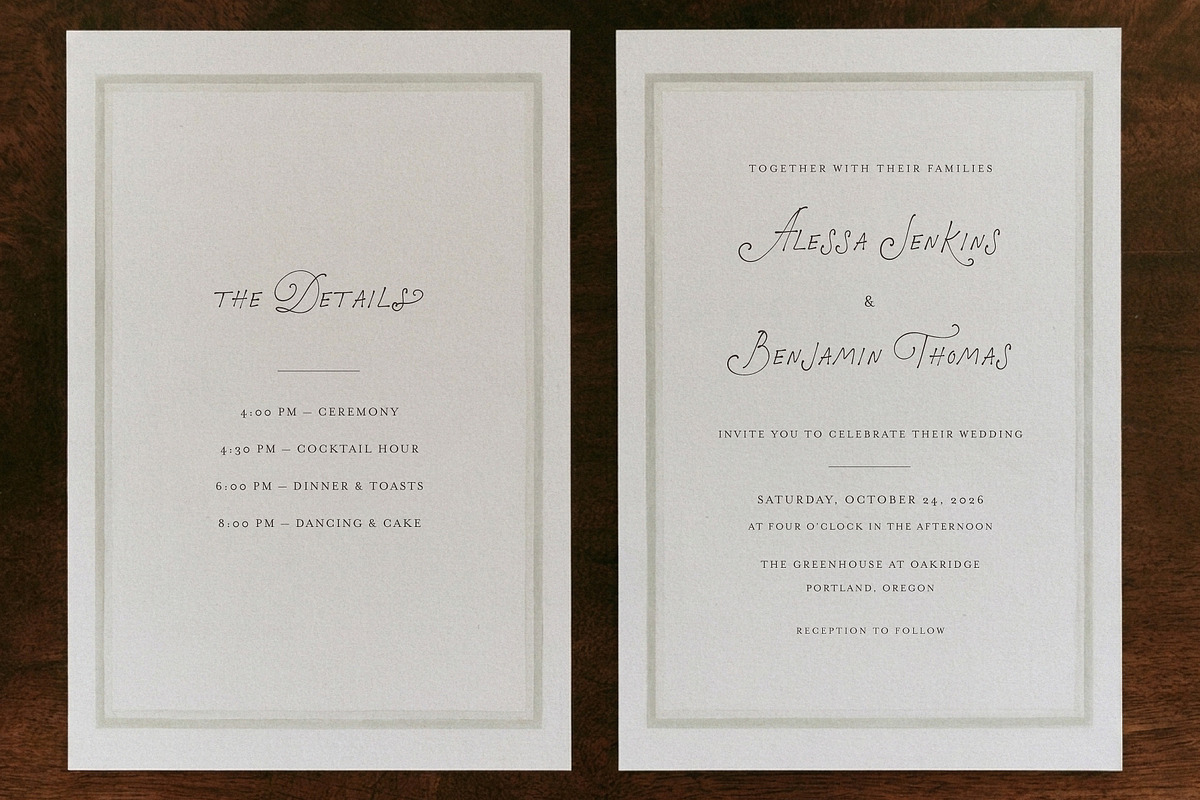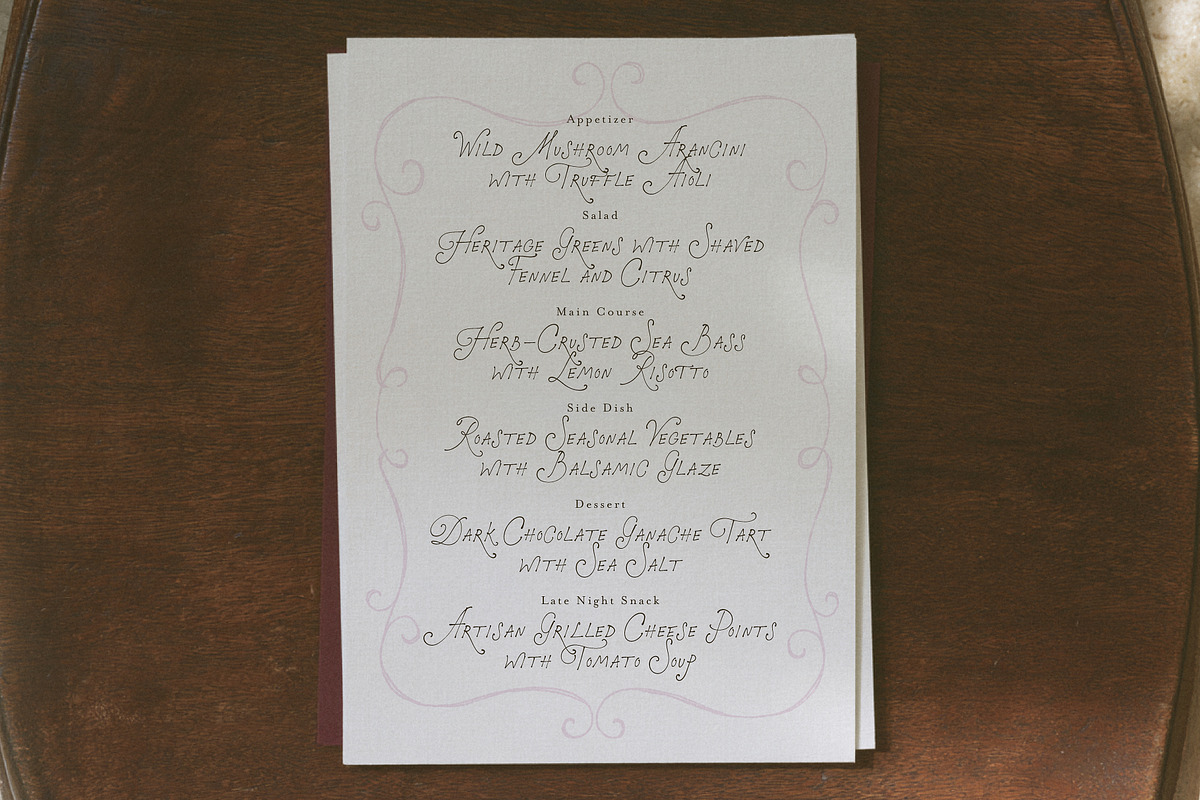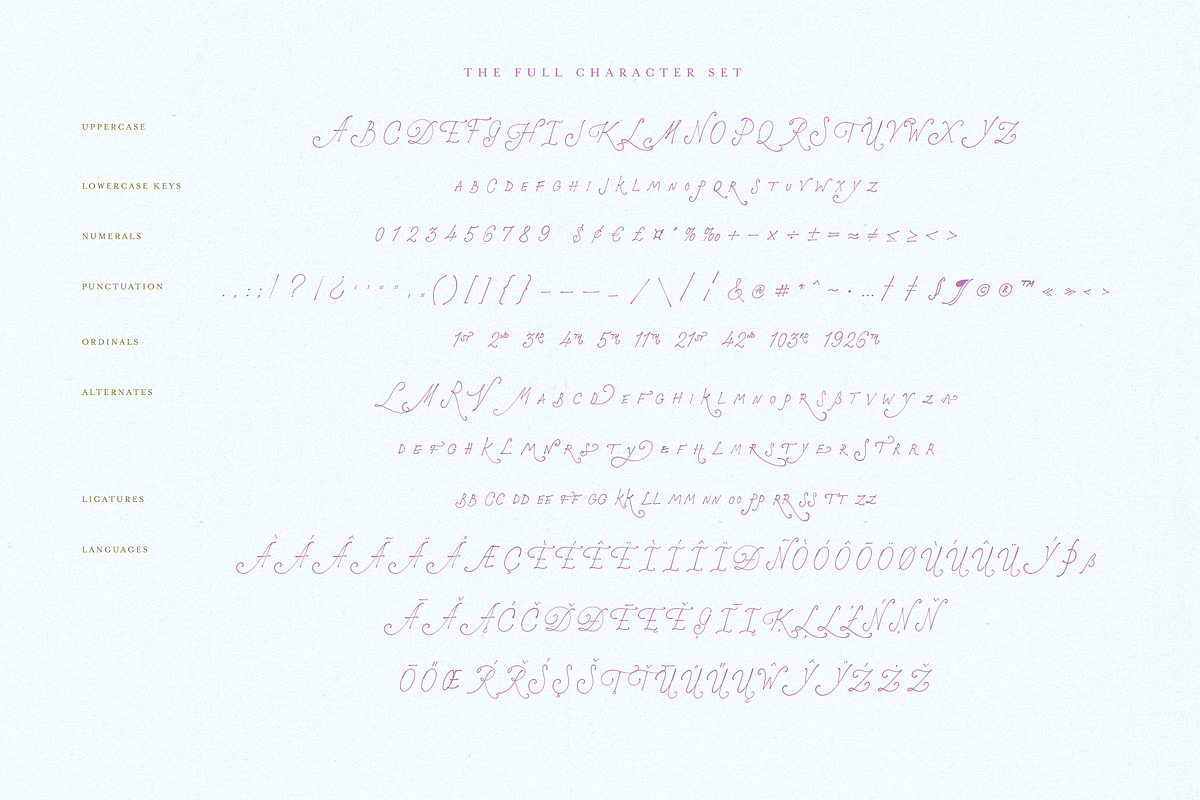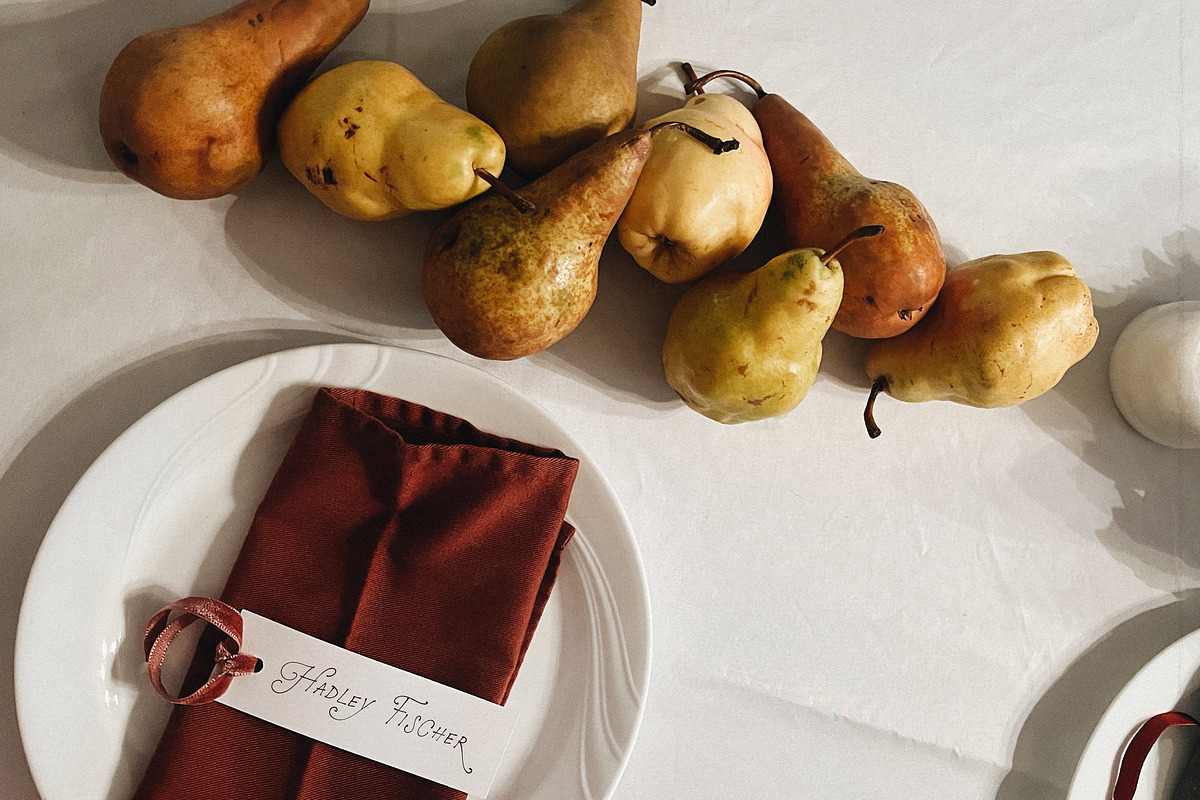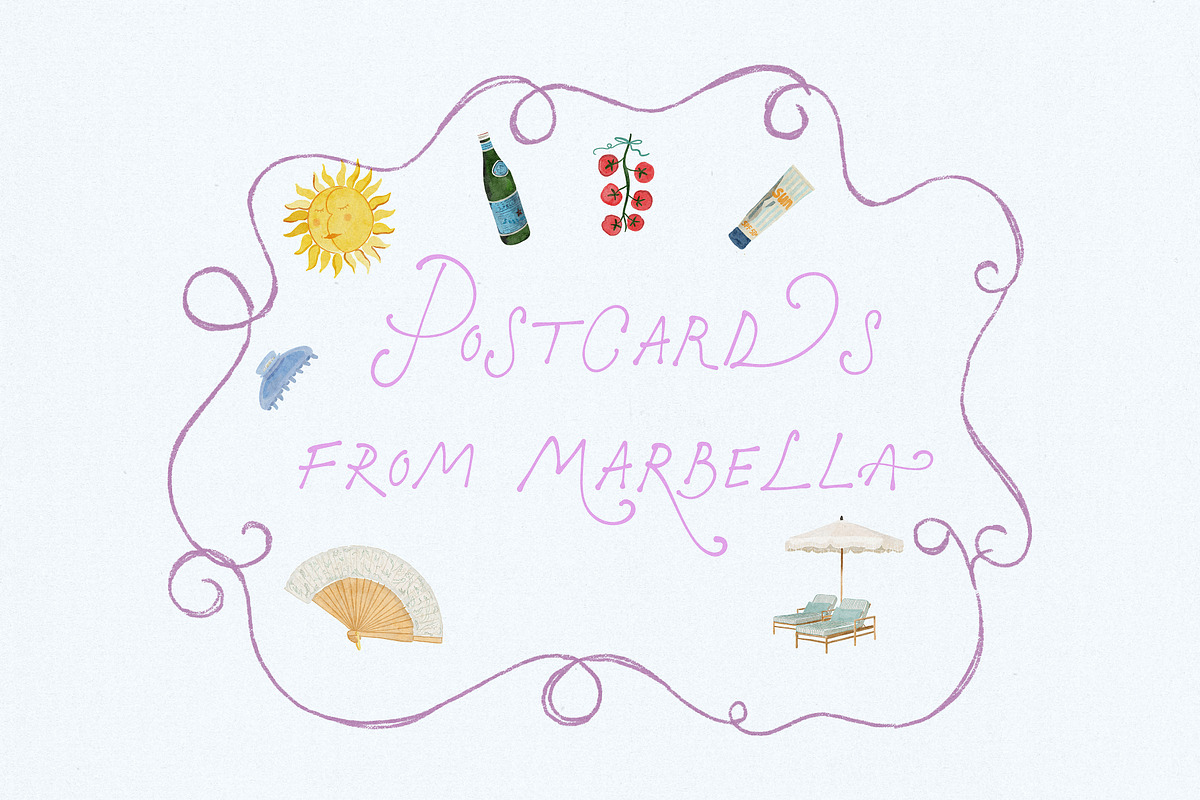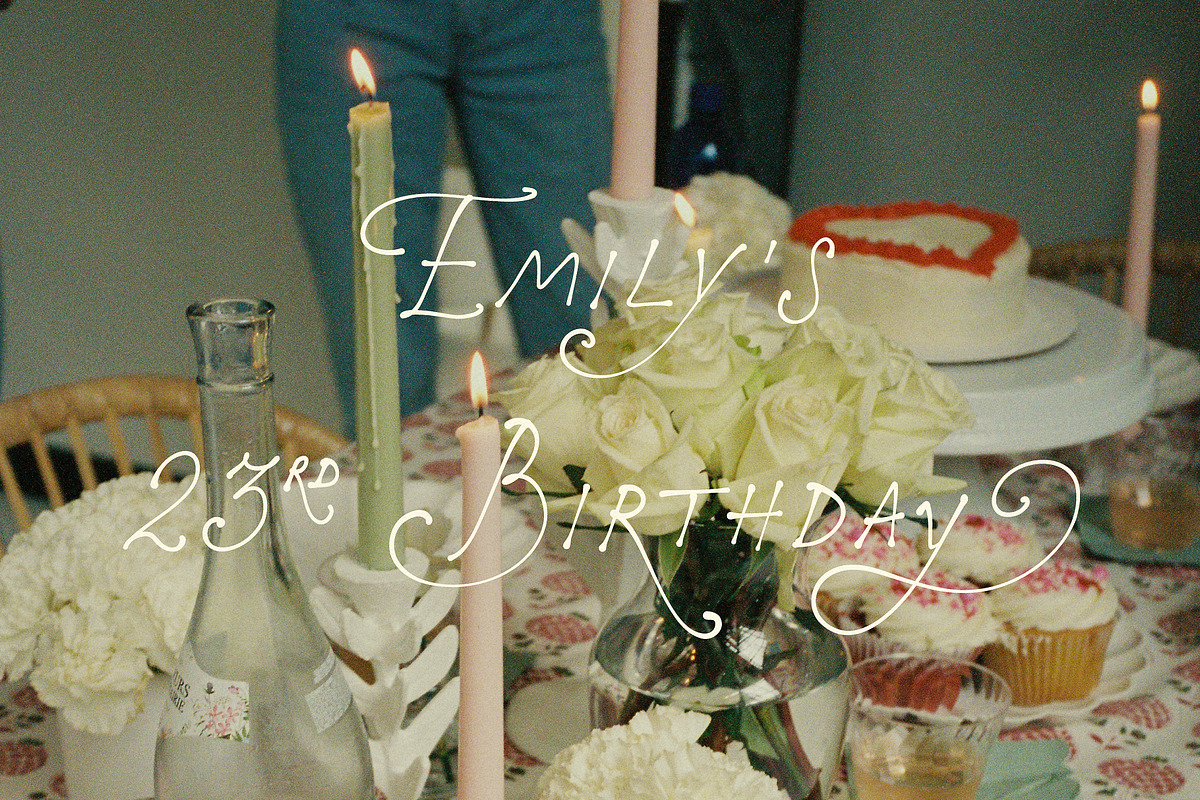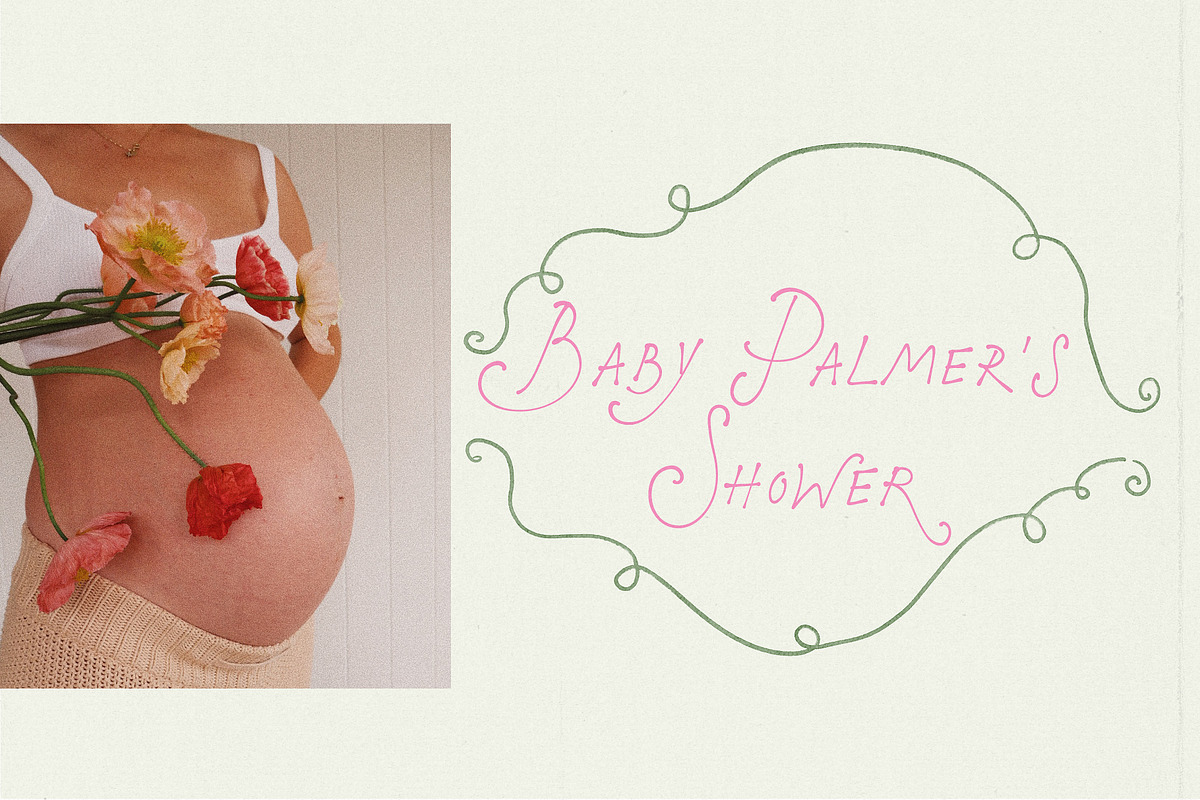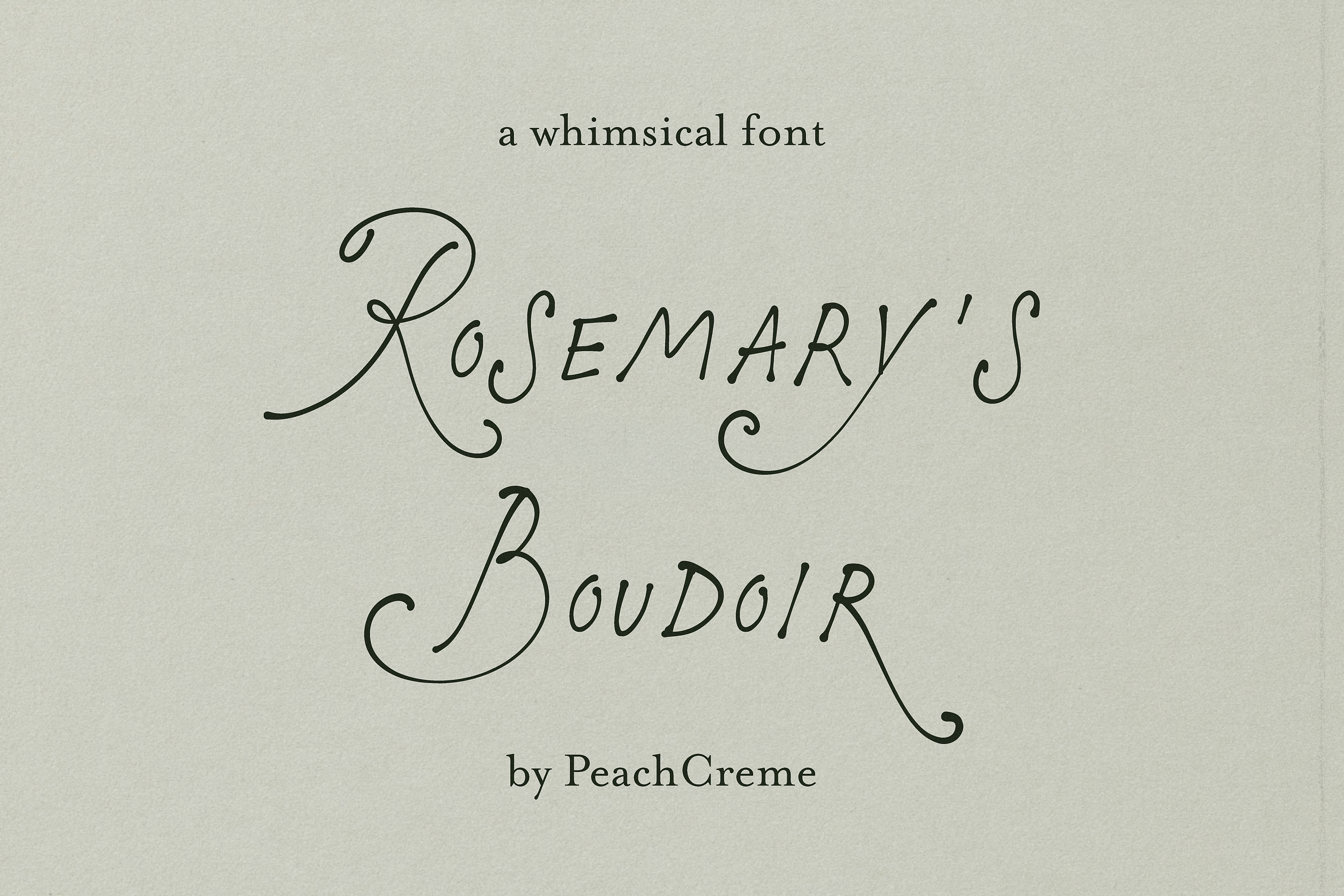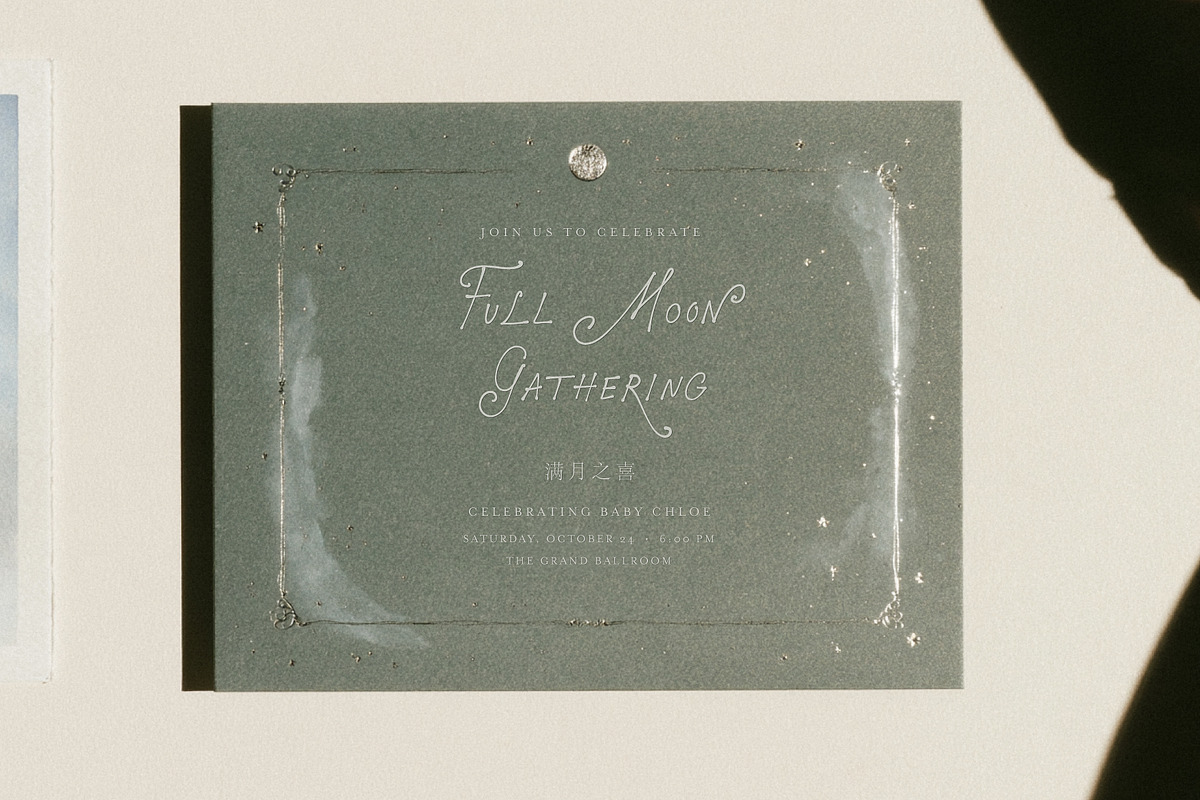
Rosemary's Boudoir // Whimsical Font
Rosemary’s Boudoir is a whimsical, hand-lettered caps font that bridges the distinct character of Lovers in New York with the tactile, ink-trap feel of Elizabeth Darlington. Featuring the familiar expressive shapes and signature R, it carries a rich, gel-pen texture on paper—ideal for modern stationery, menus, and bespoke event branding.